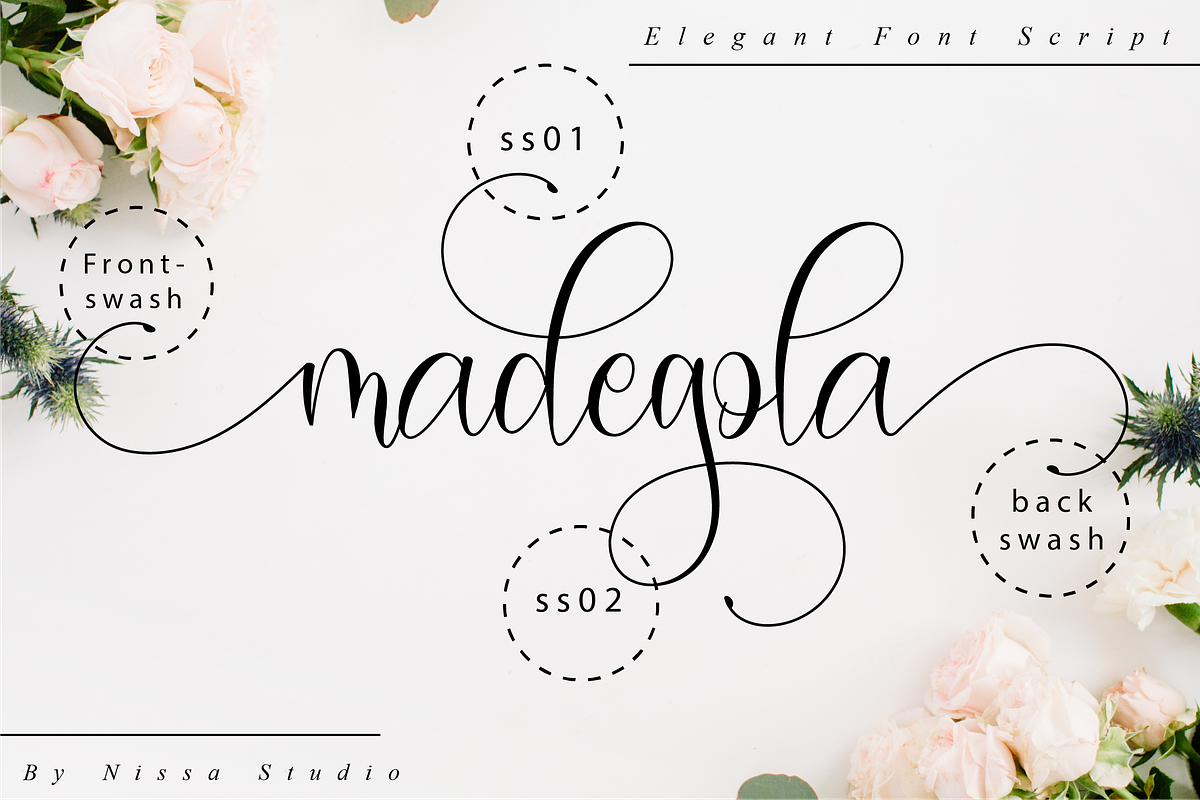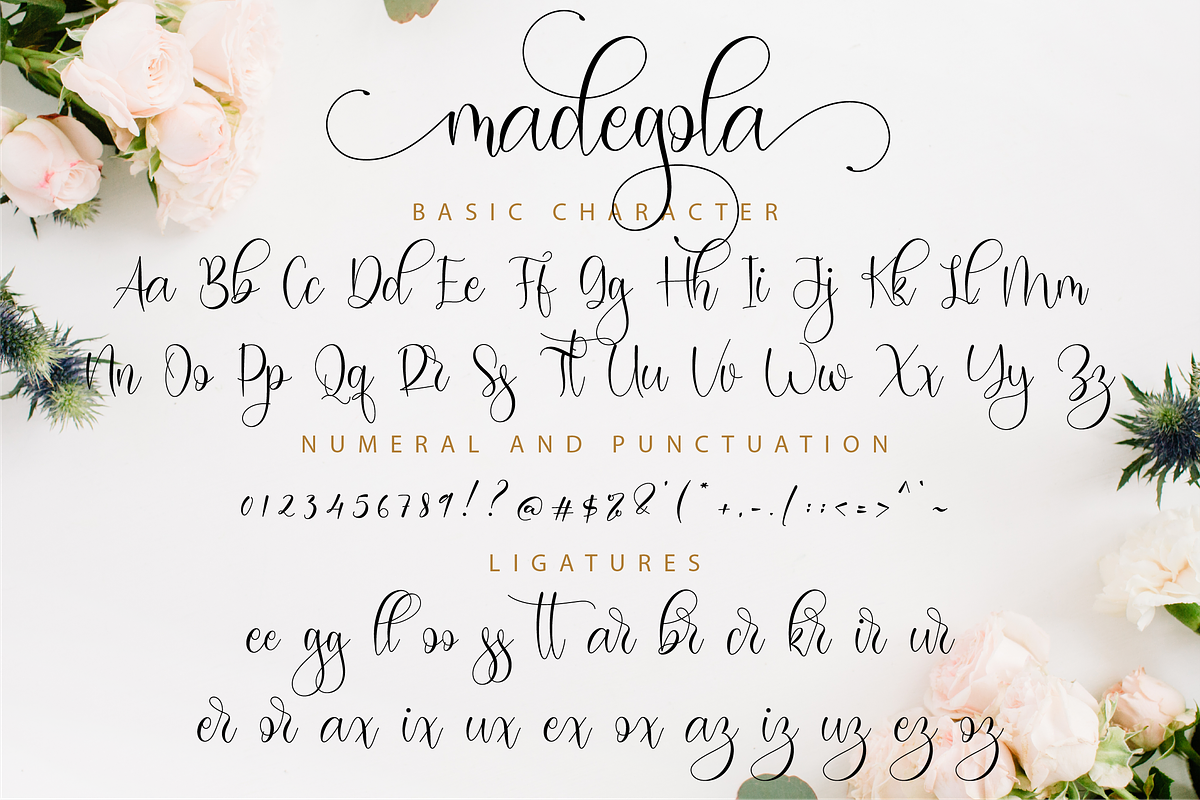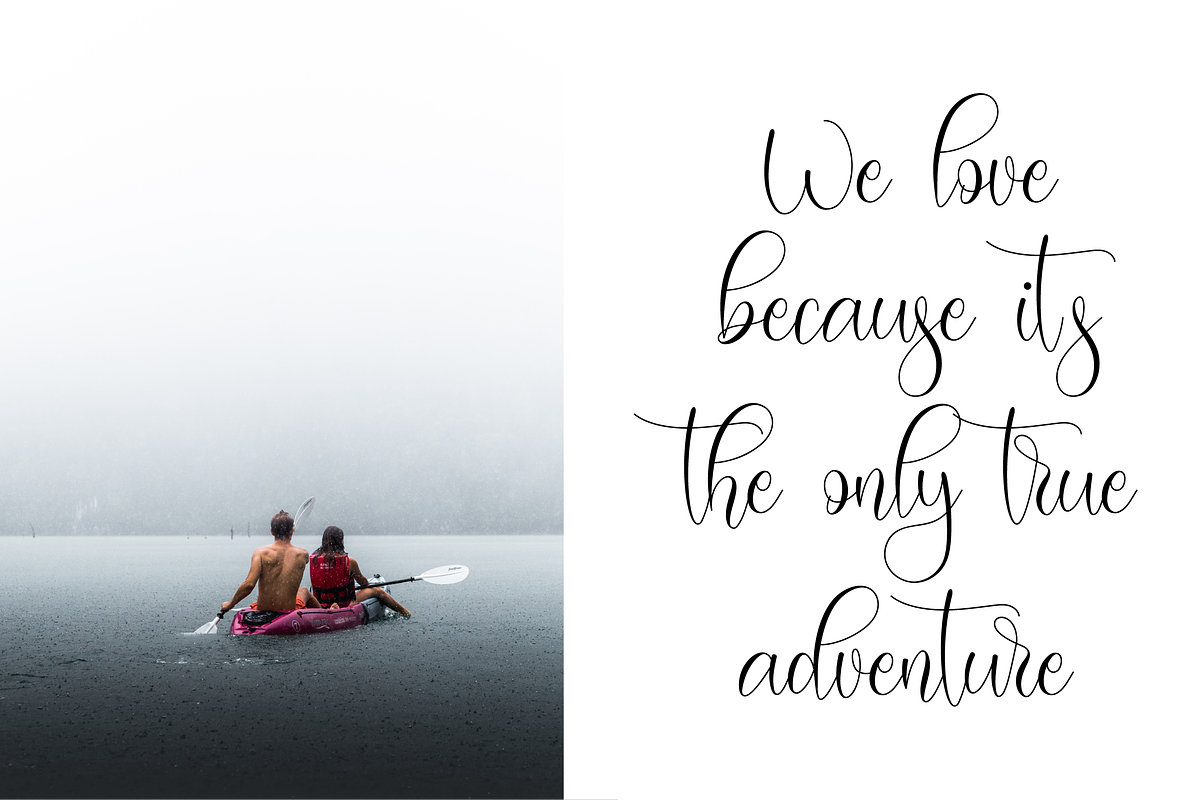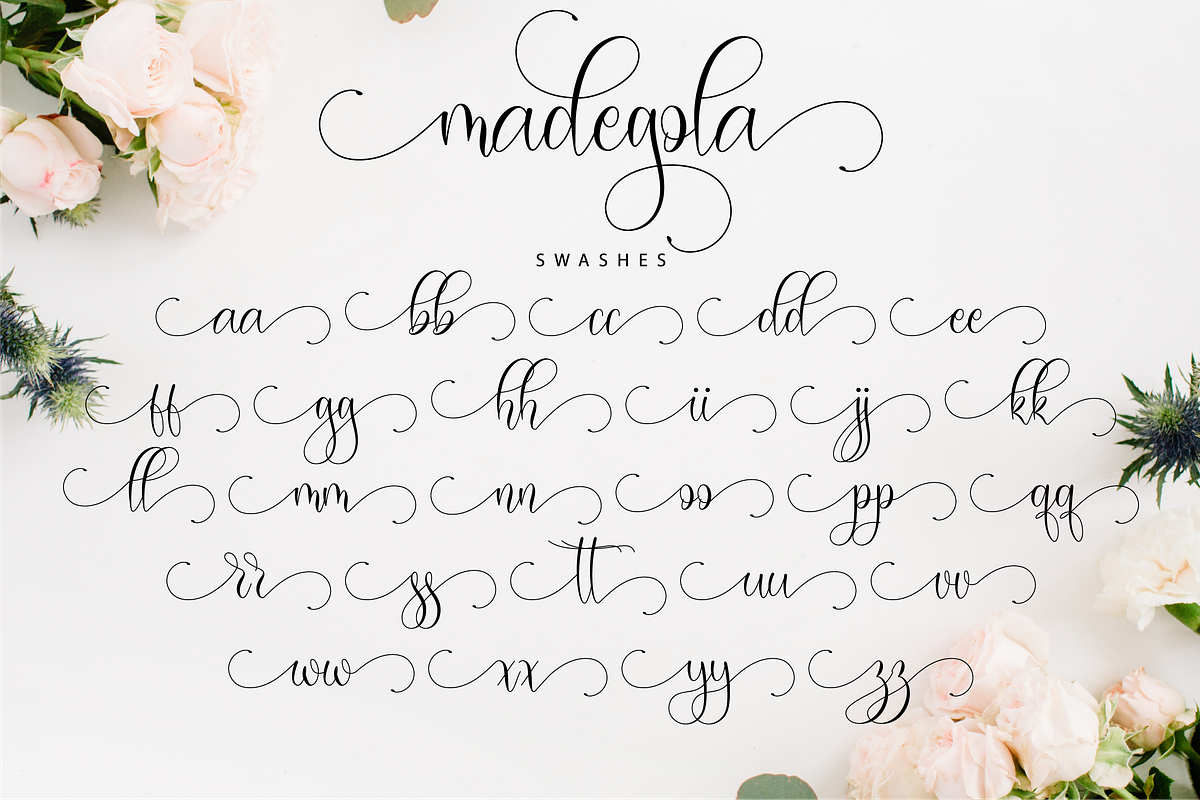
Madegola Script
Madegola is stunning and enchanting, but also incredibly modern. This versatile script font has a wide range of applications ranging from greeting cards to headlines and is guaranteed to add a romantic feel to your next craft.
Each Font Has:
- Modern Handwritten Font
- Beautiful Swash (Ending tail)
- Beautiful Titling (Beginning tail)
- Special Ligatures